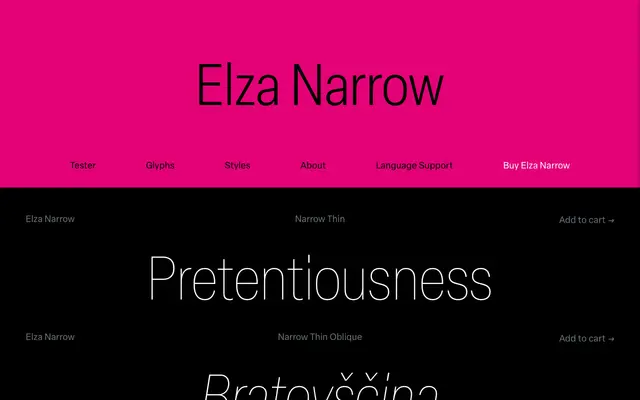
Elza Narrow
Blackletra · Daniel Sabino · 2021
The narrow width of Daniel Sabino's Elza family, a deliberately characterless neo-grotesque with mechanised square curves drawn from the Helvetica and Univers lineage.
Elza Narrow comprises 16 styles across eight weights from Thin to Black, each with an oblique companion, part of the larger Elza family that spans three widths and two optical sizes. Small straight segments on the sides of round letters push the design towards a squarish, mechanised consistency beyond even Helvetica, while OpenType features include small caps, tabular and oldstyle figures, and a single-storey 'a' alternate. A variable font with weight, width and slant axes is also available, and language support extends across several hundred Latin-script languages.
Explicitly modelled on the neo-grotesque tradition of Helvetica and Univers, with mechanised square curves and straight-sided rounds that push the genre's systematisation further still. Obliques rather than true italics reinforce its rational, unsentimental character.